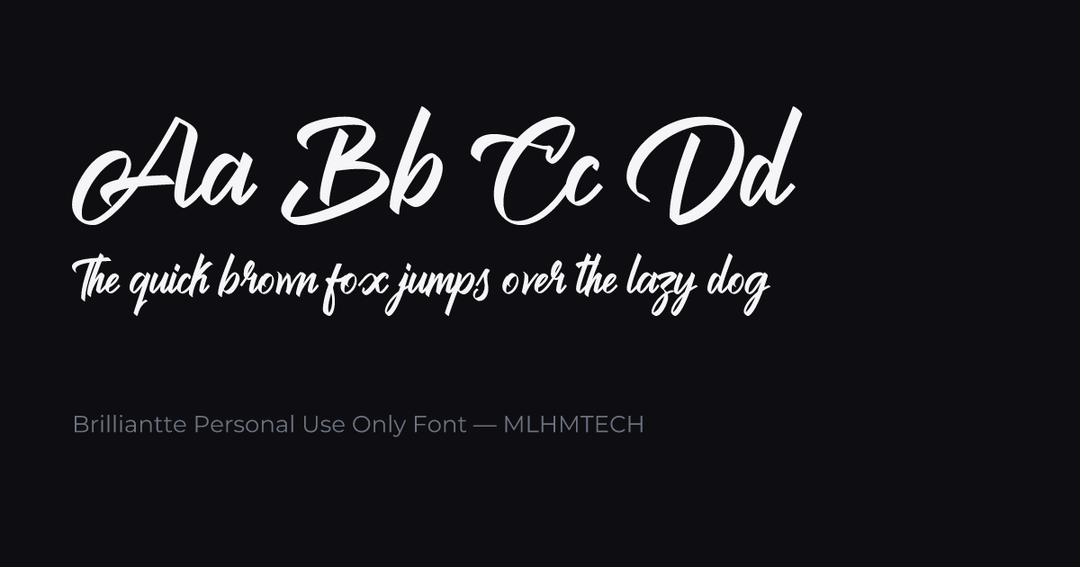
Brilliantte Personal Use Only Font
Brilliantte is an elegant script font with a modern calligraphy feel. Ideal for wedding invitations, logos, and branding projects.
Brilliantte is a beautiful script font that adds a touch of sophistication to any design. Its flowing strokes and graceful curves make it perfect for formal invitations, branding, and social media graphics.